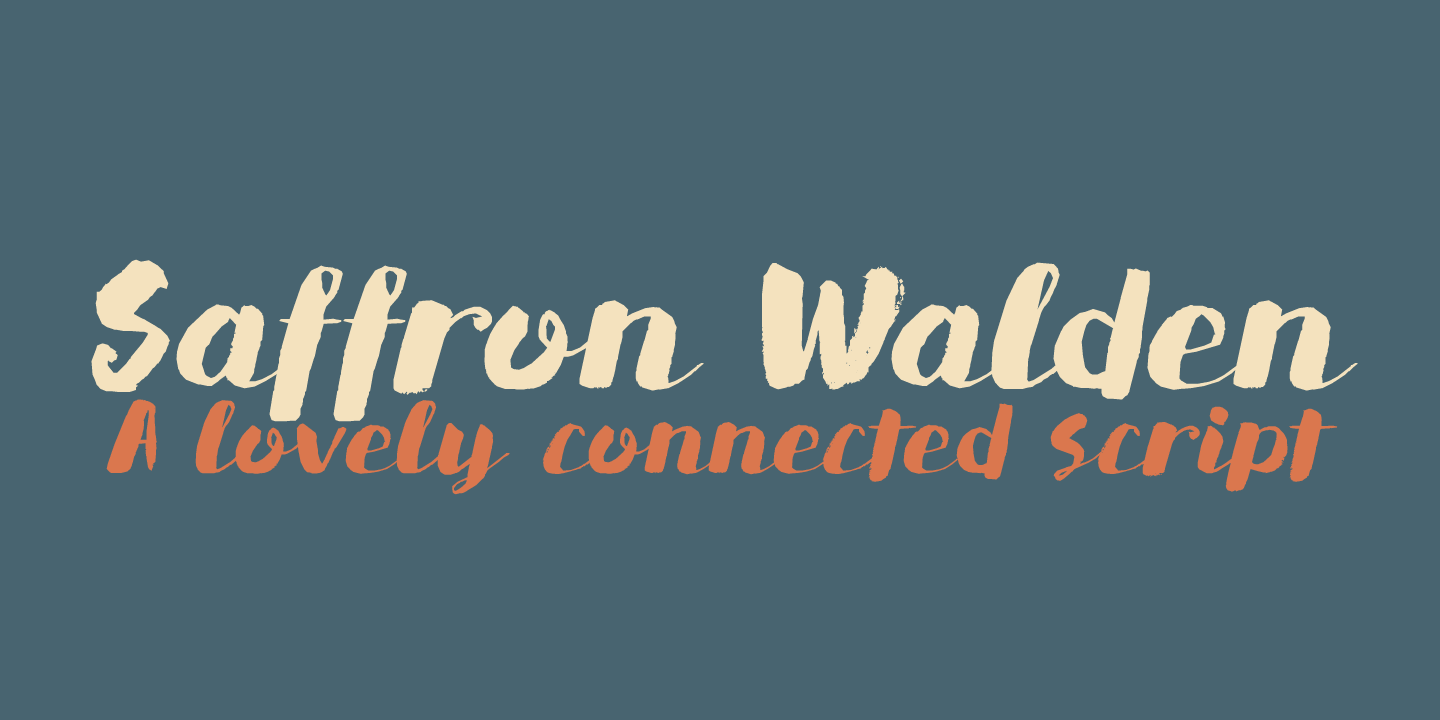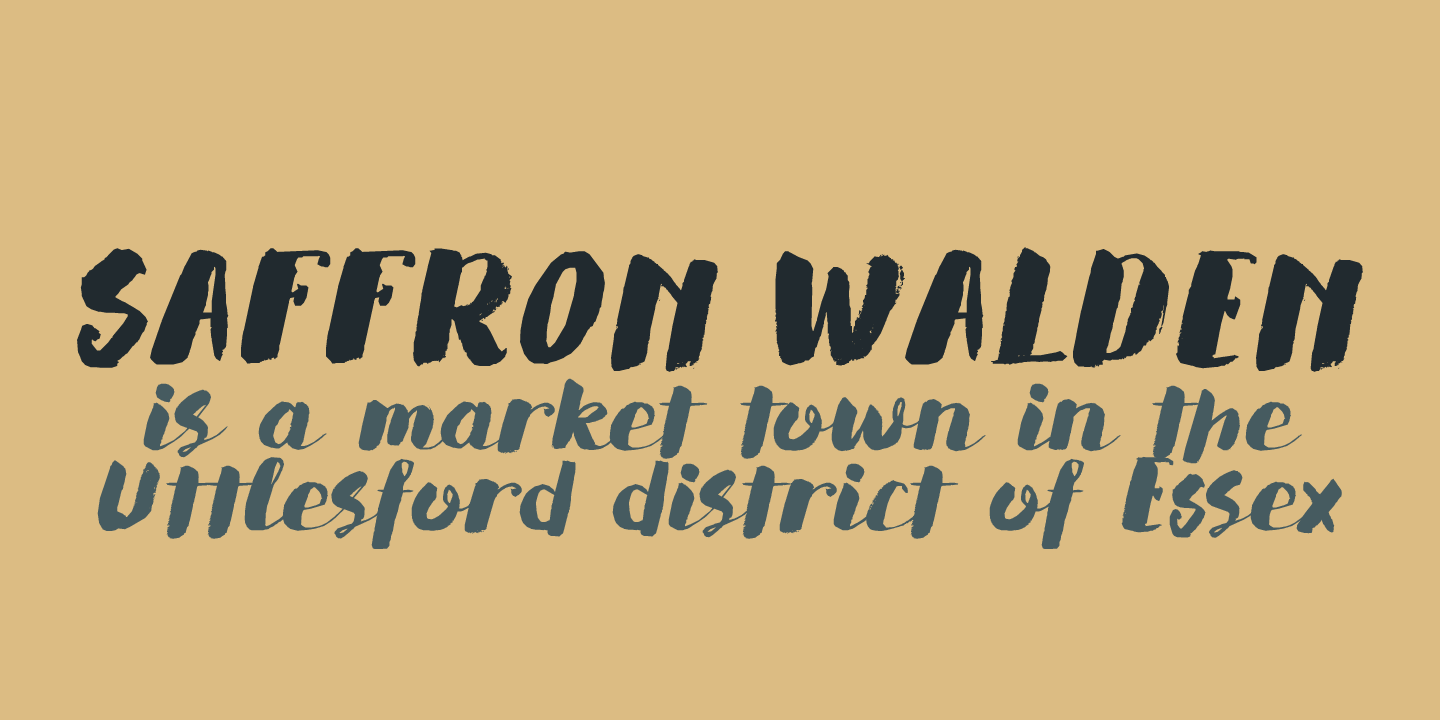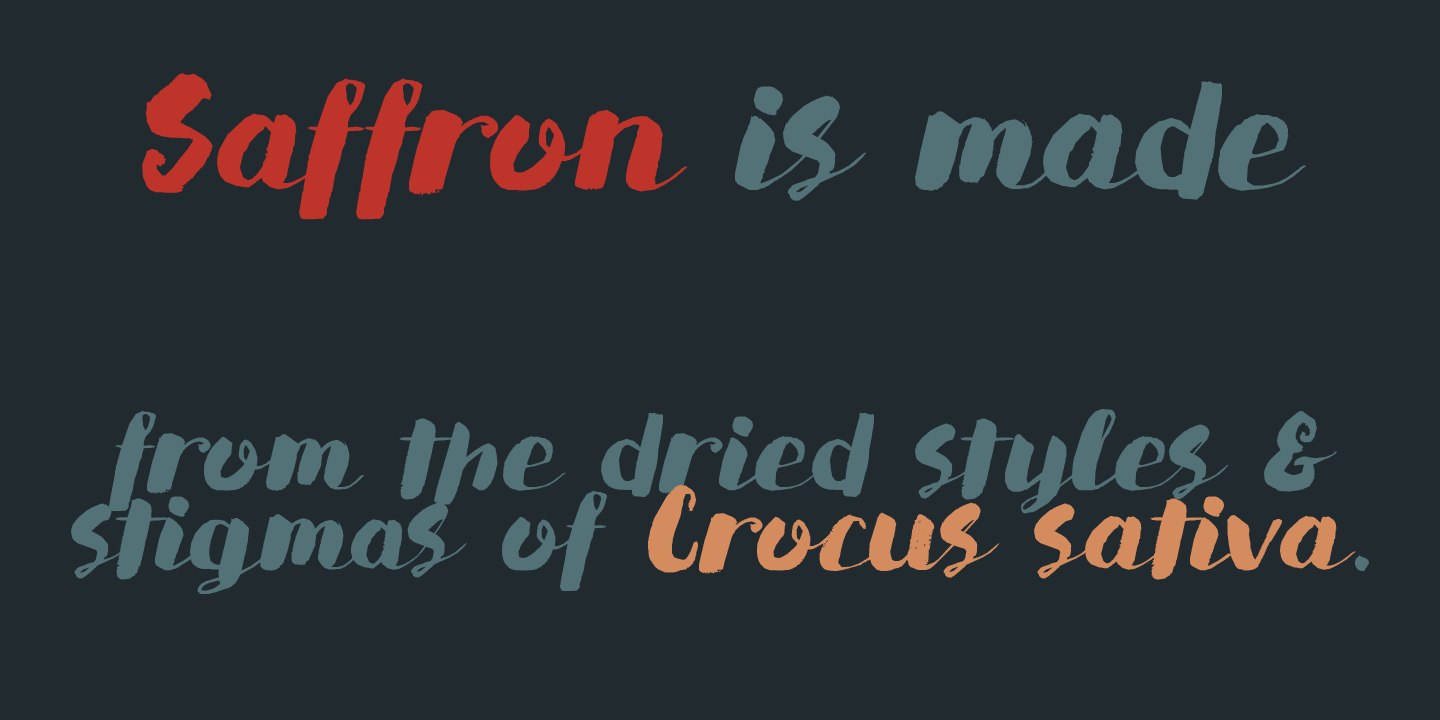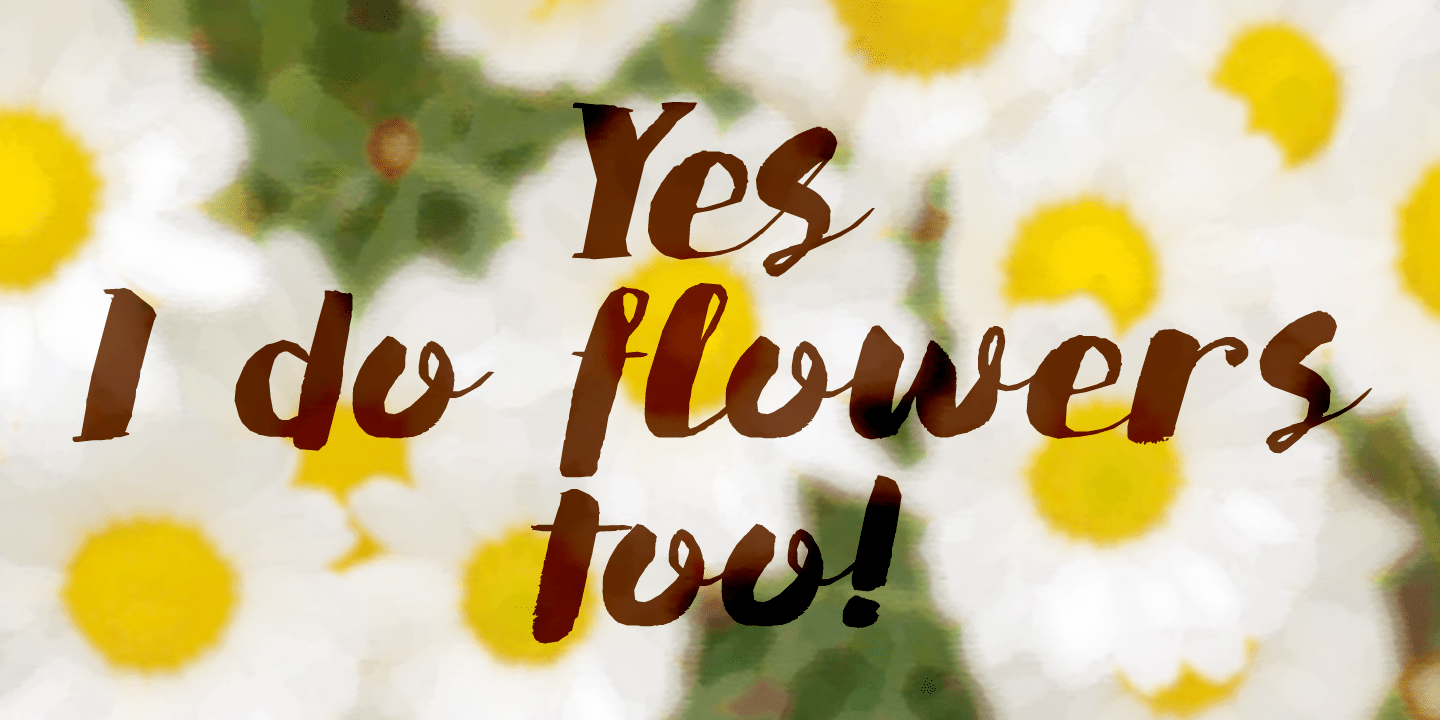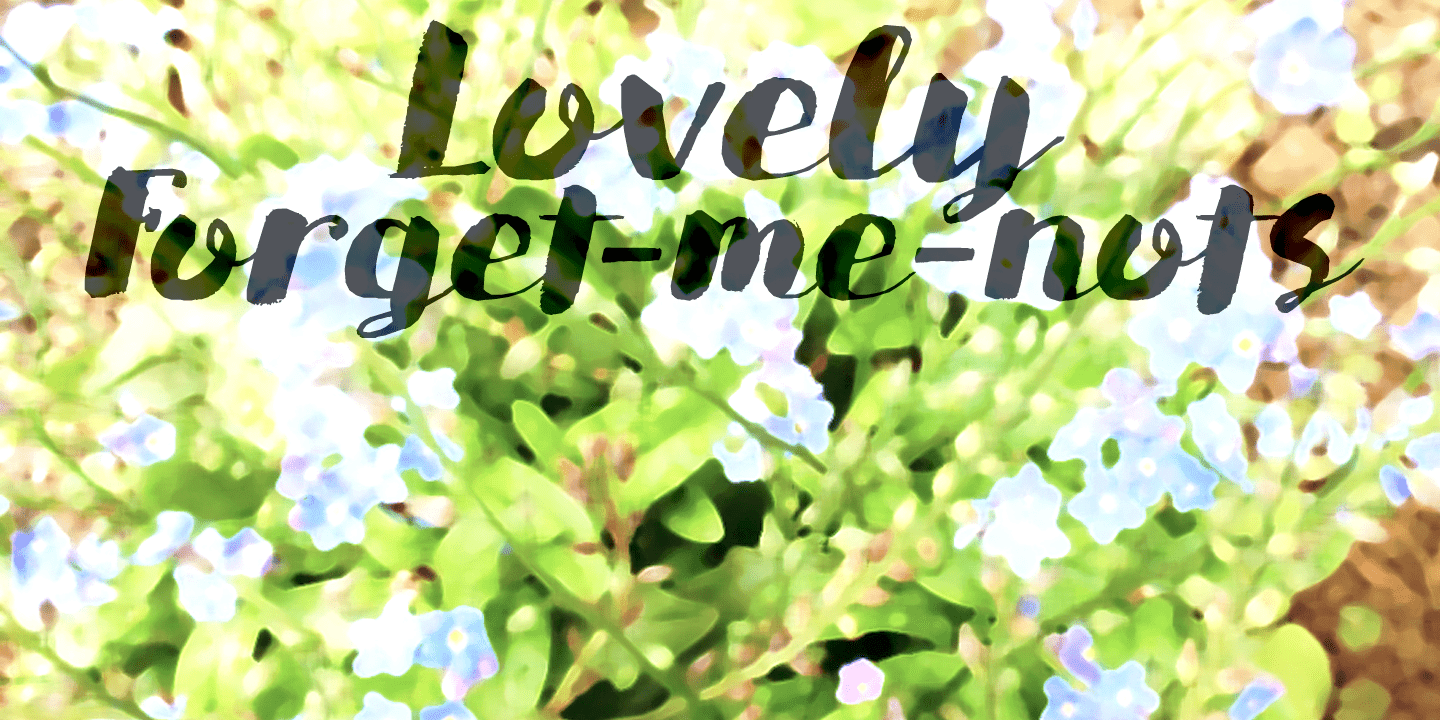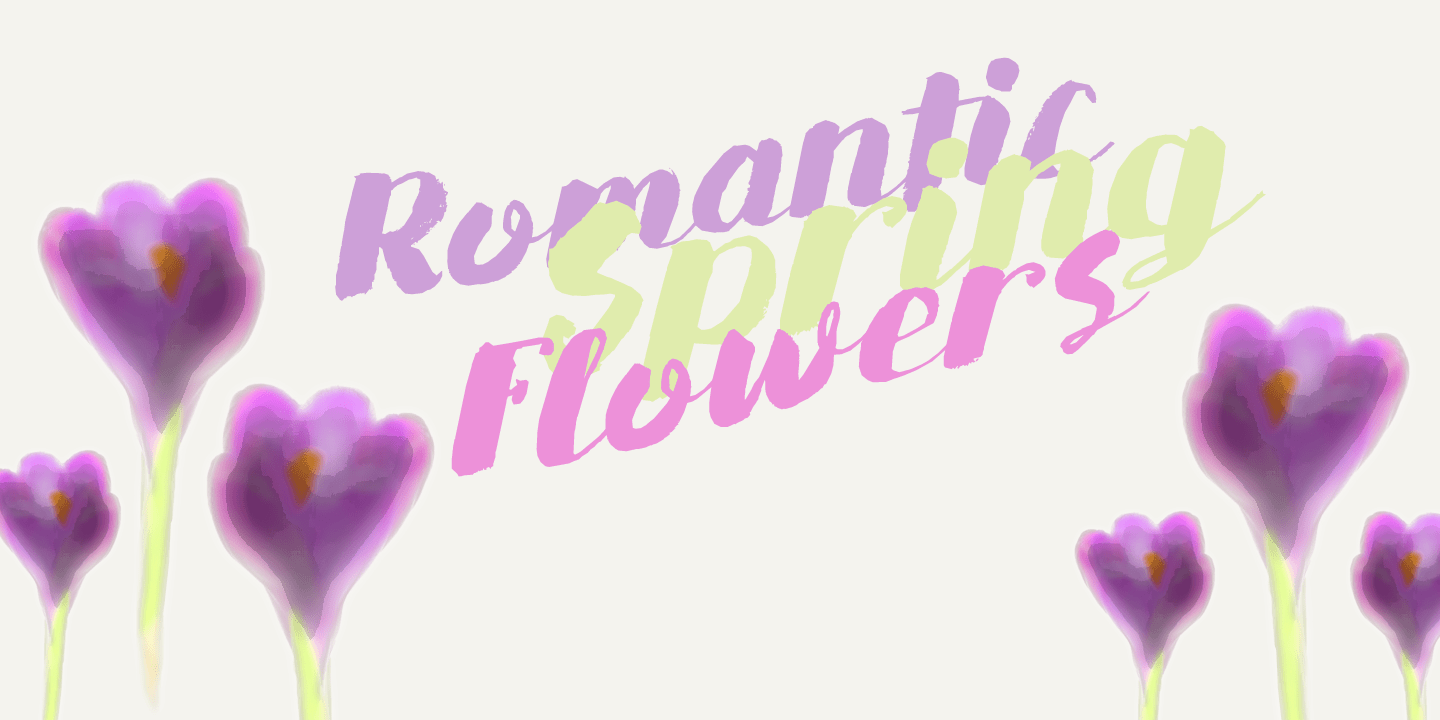
Saffron Walden
Saffron Walden is a small market town in Essex, England. When I created my first ever connected script font, I decided that a ?flowery? name would be best (since that seems to be the most popular choice for connected fonts?.). Saffron Walden is a fattish, inky brush font, with a slight tilt to the right. It would be perfect for book covers, magazines, headlines and posters, but could also be used for packaging. Comes with a bunch of ligatures and a heap of diacritics.